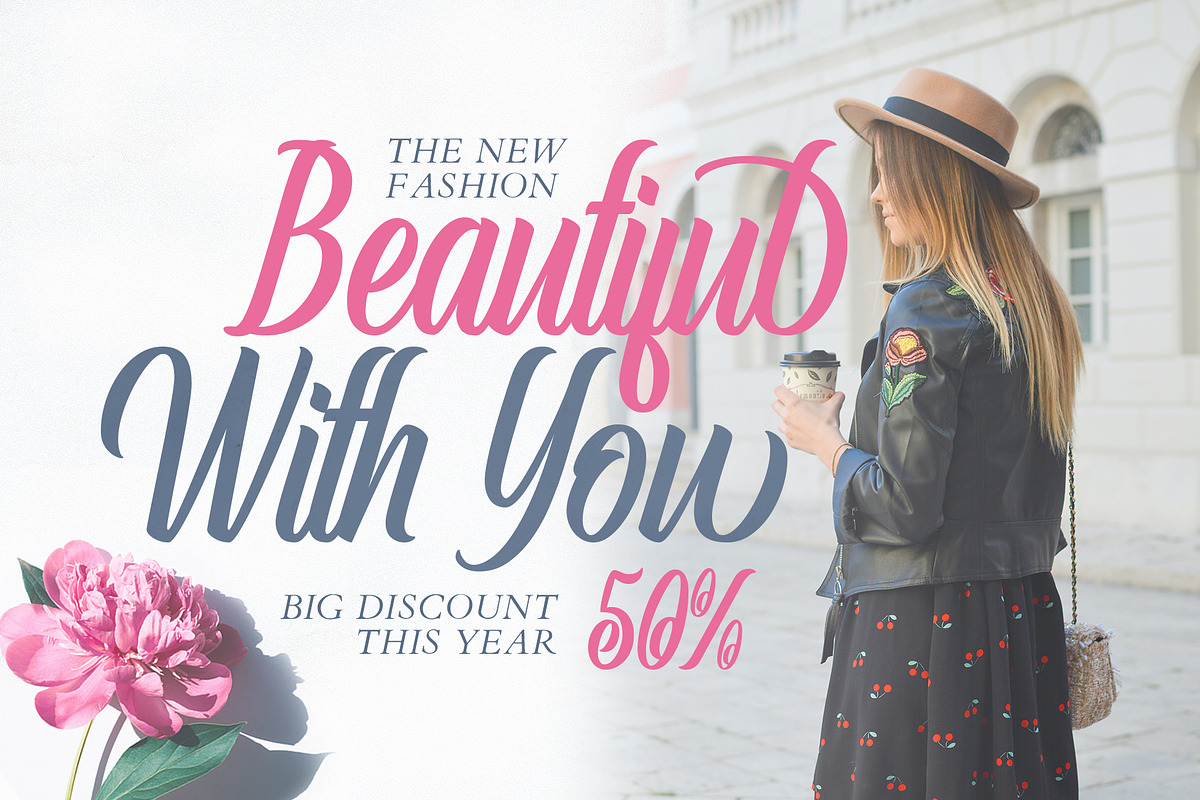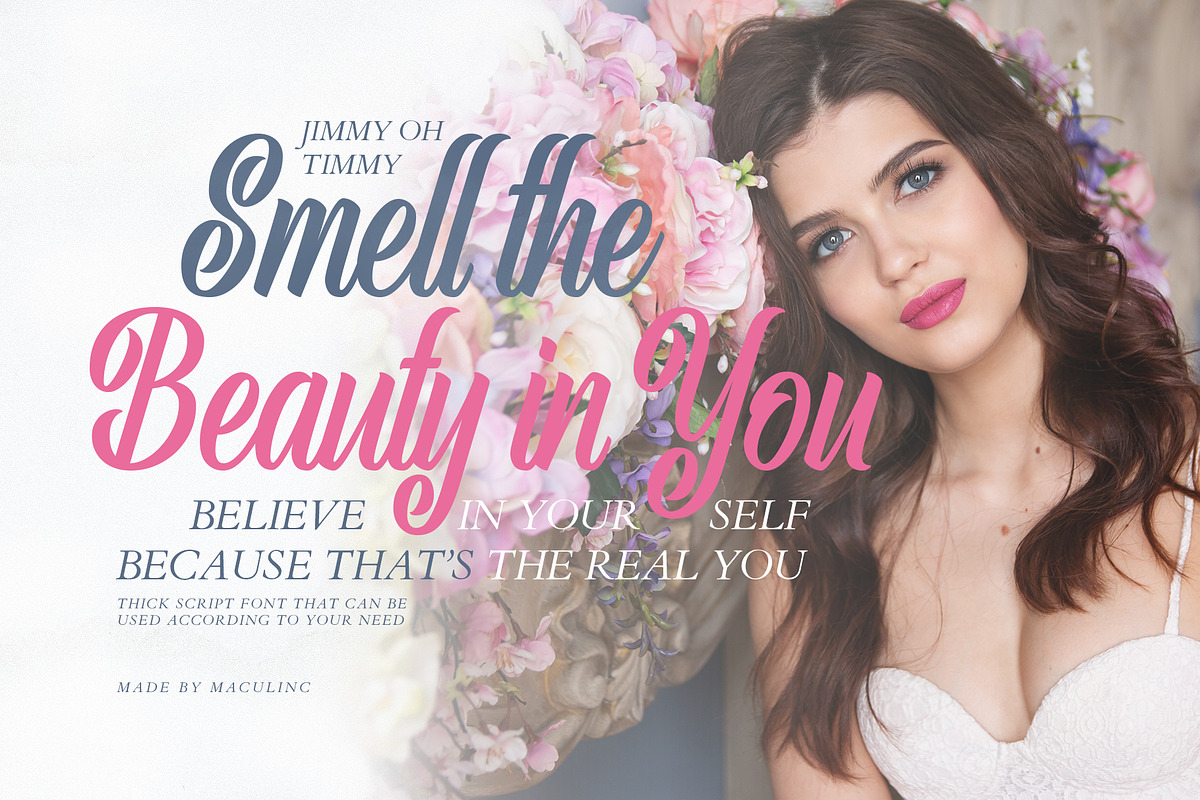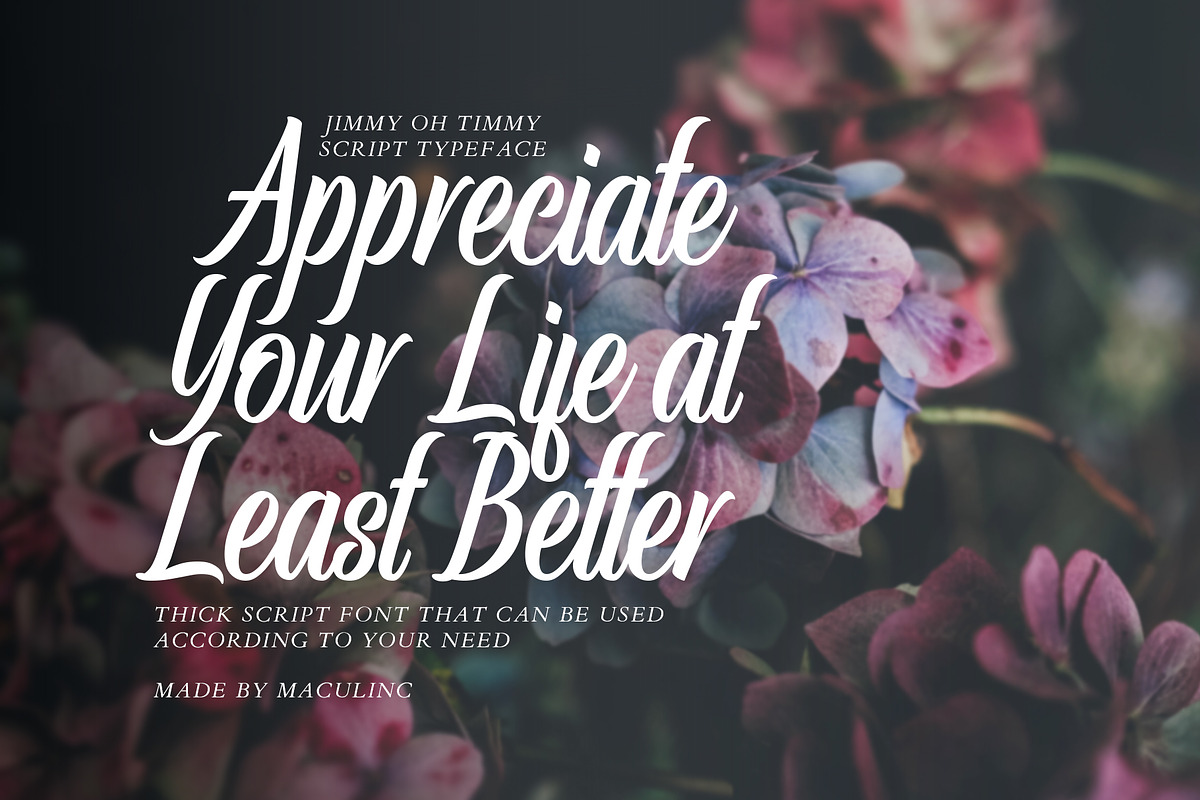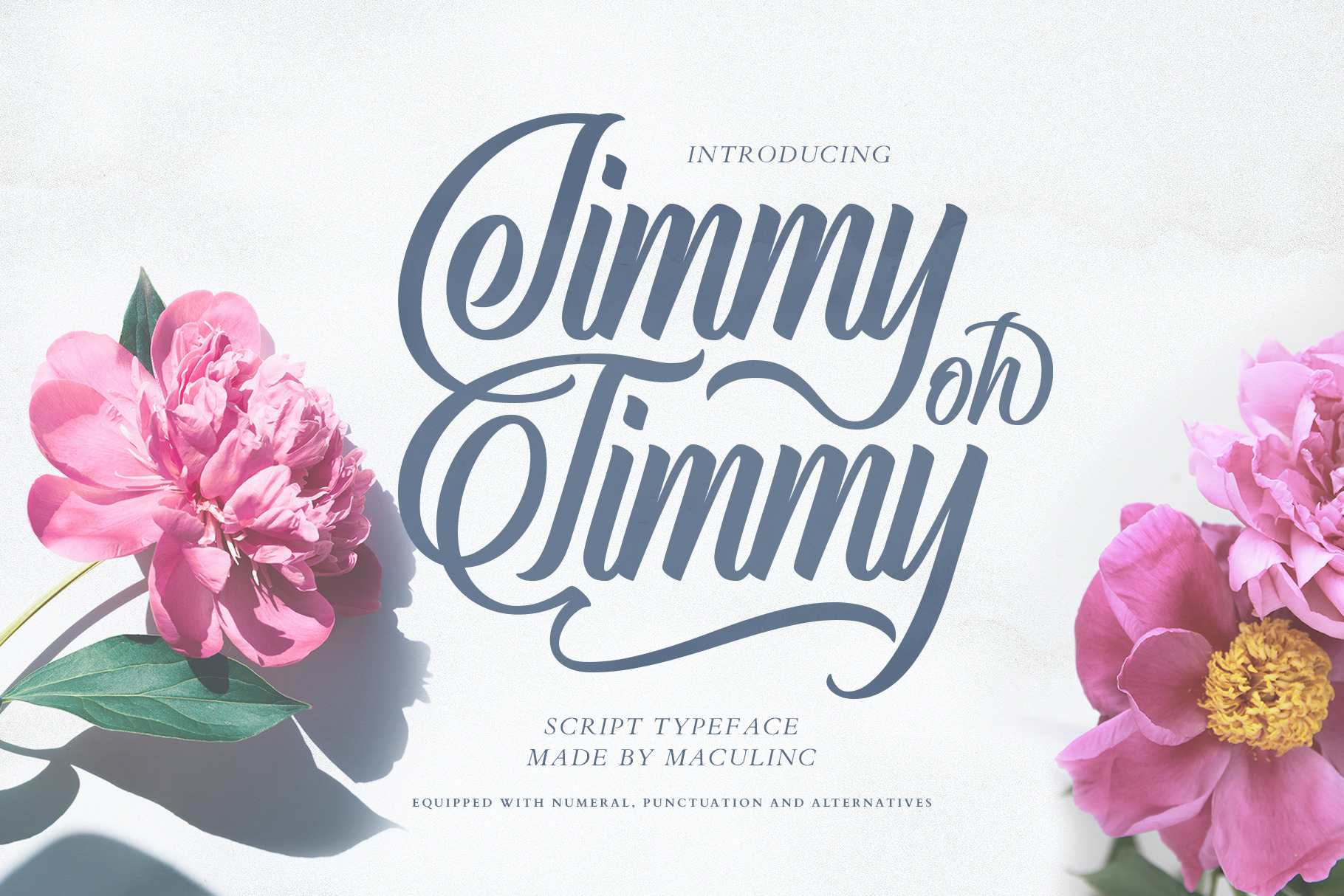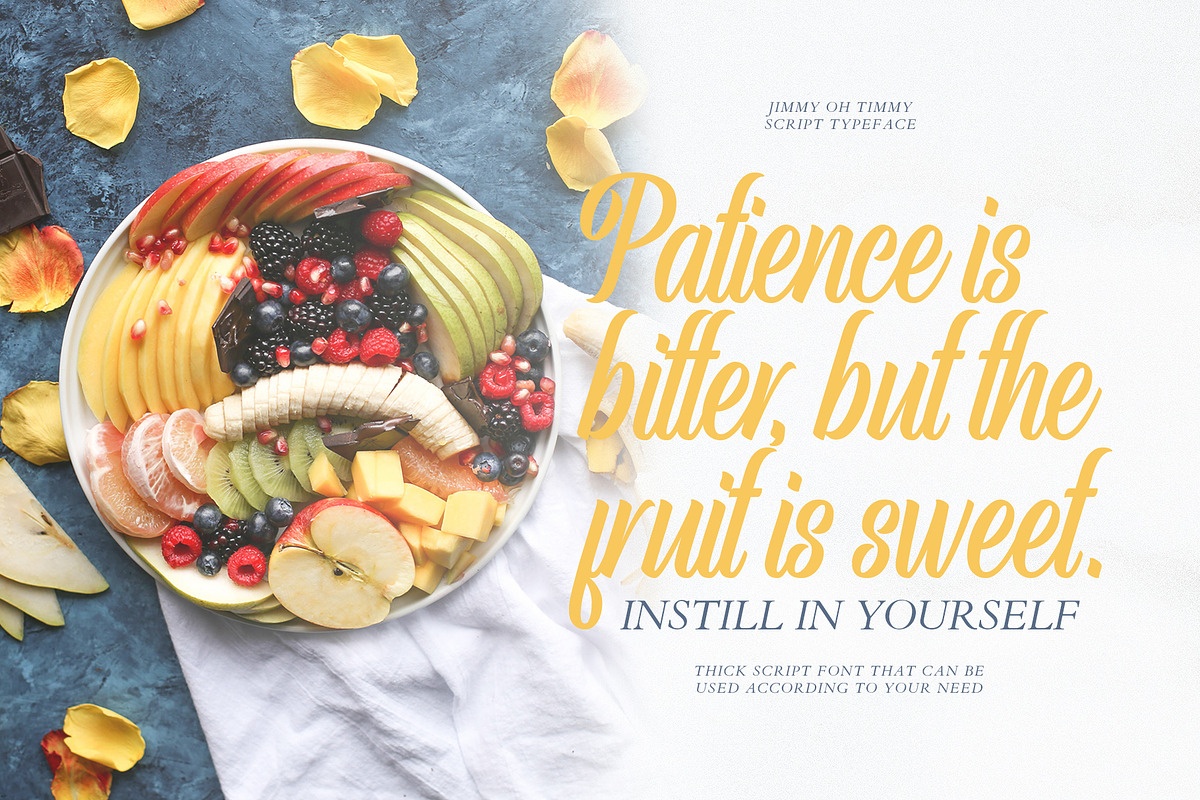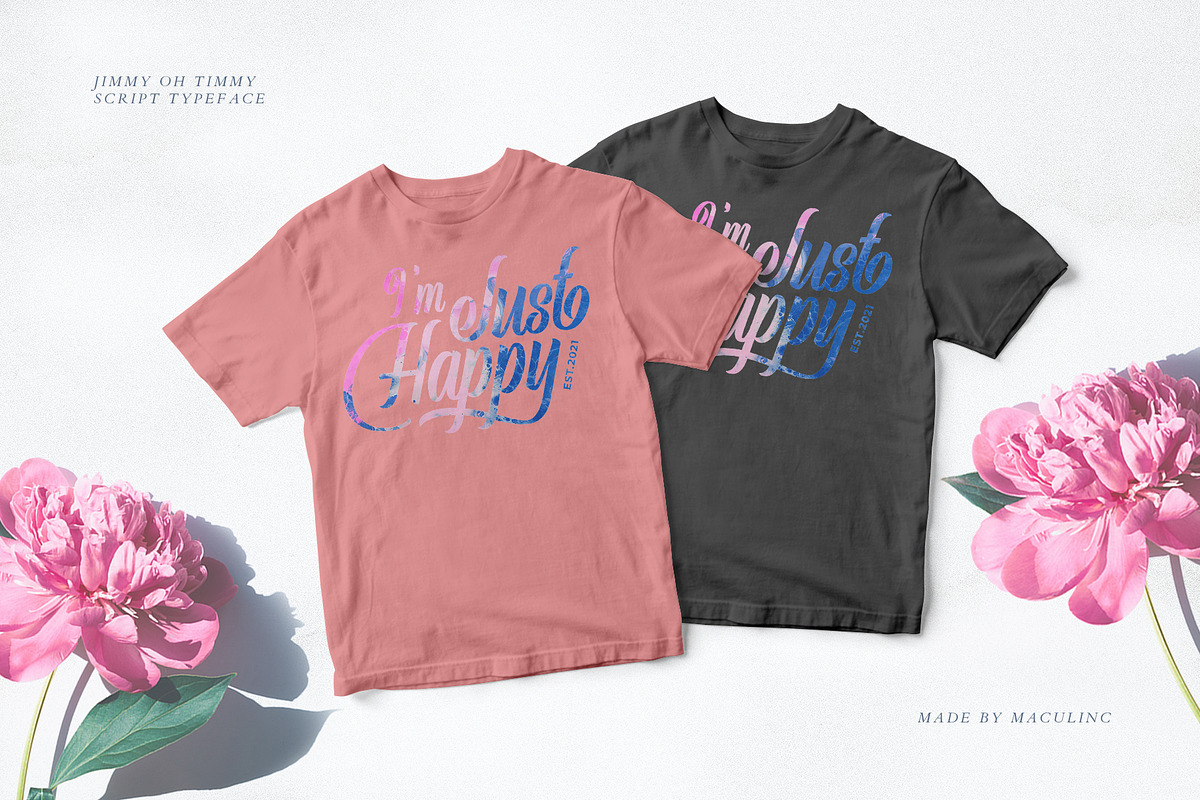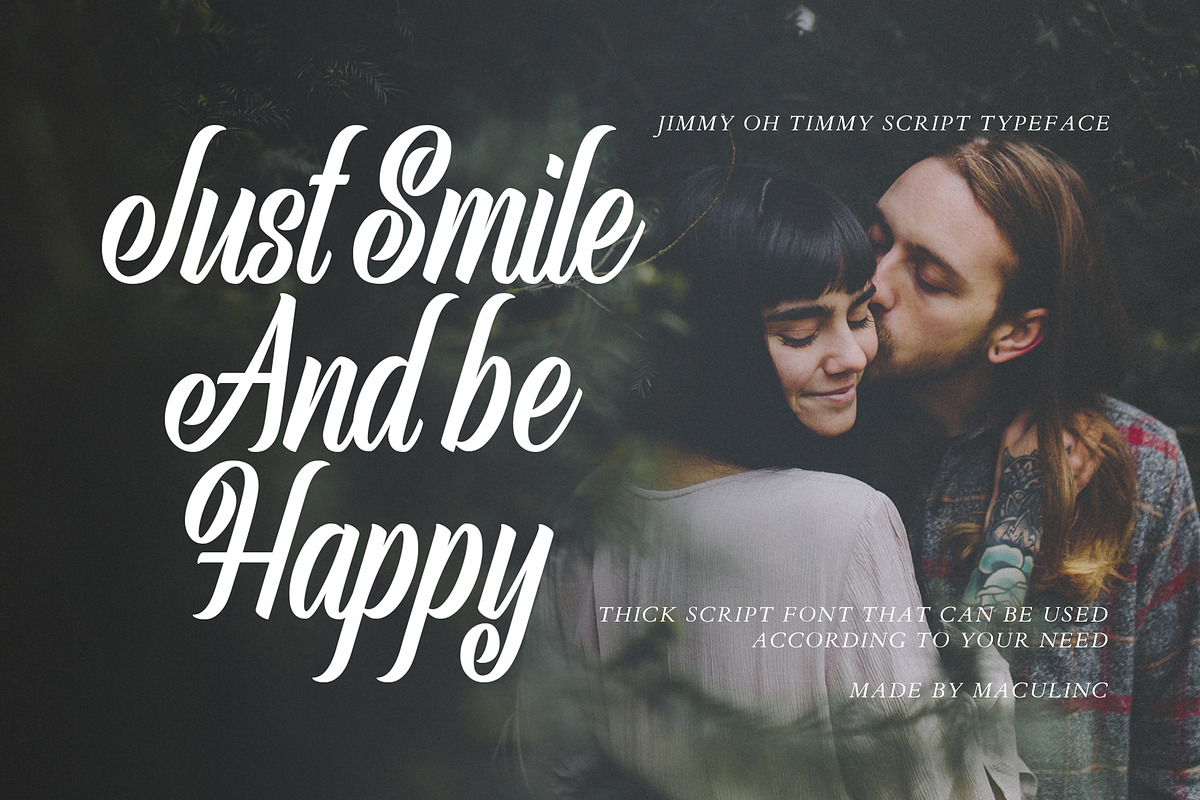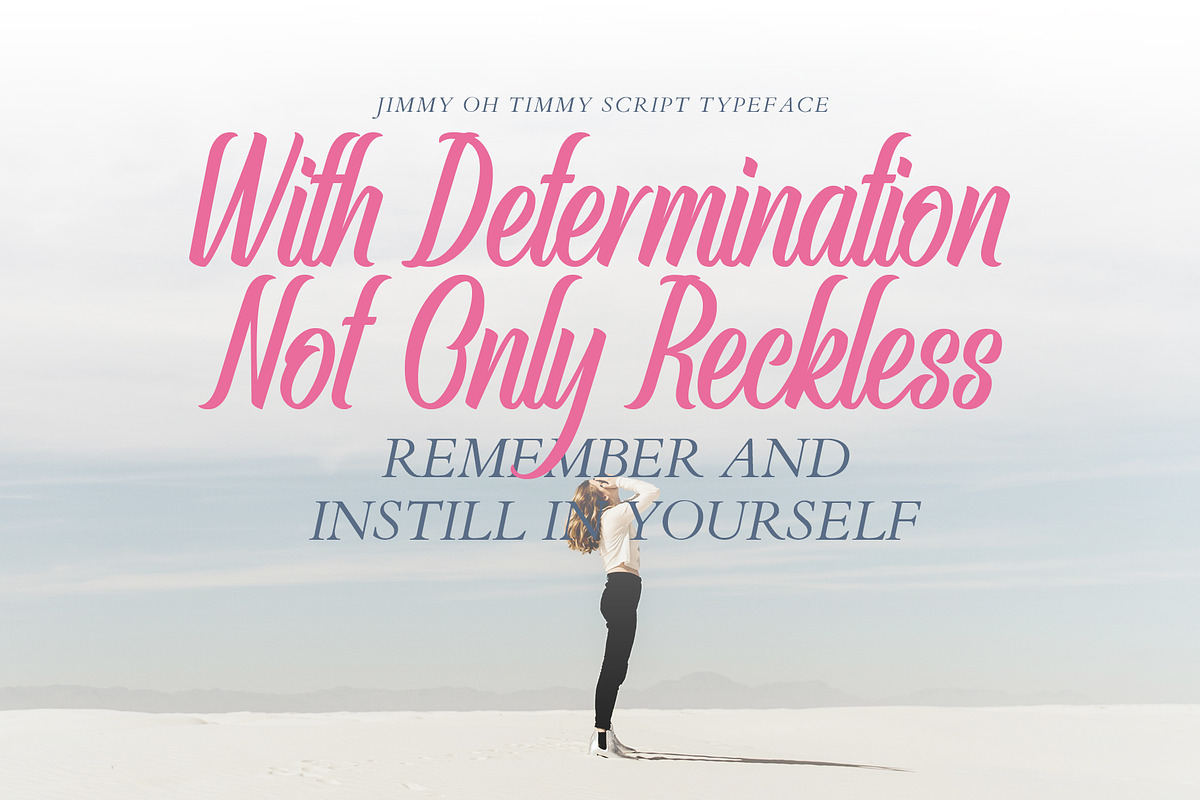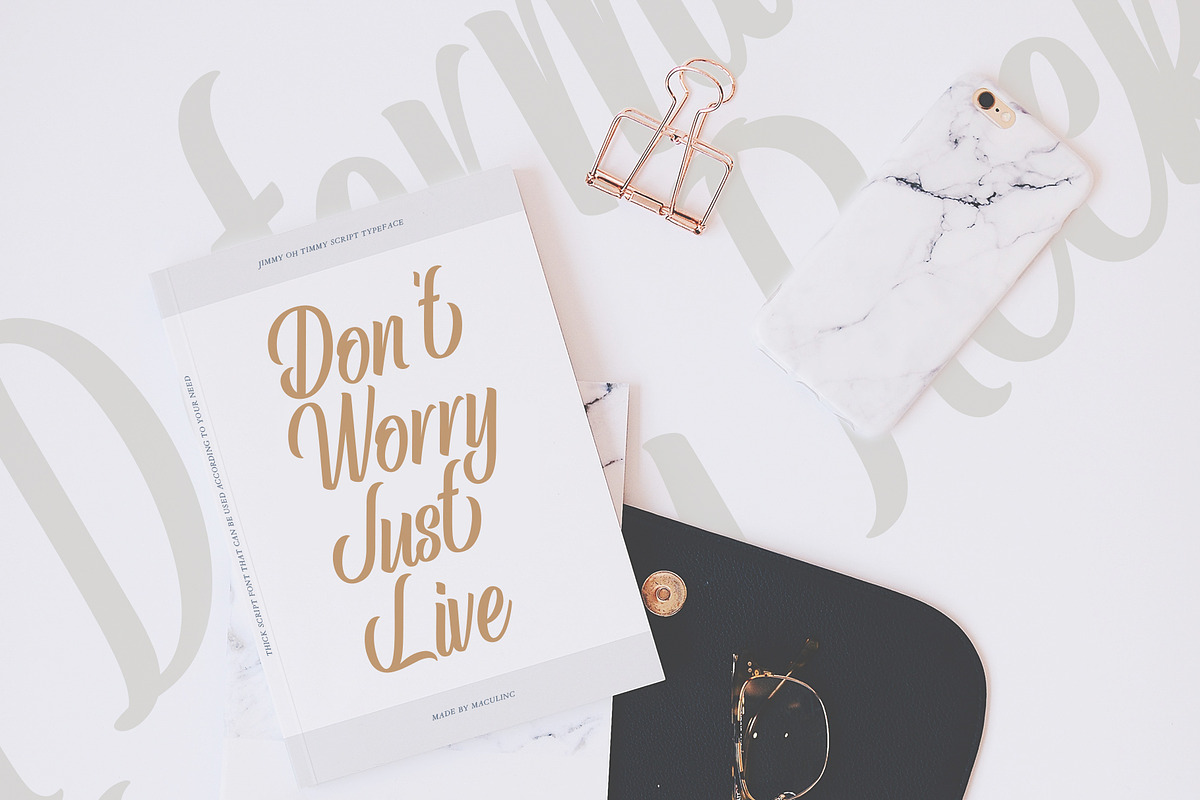
Jimmy Oh Timmy - Script Font
This multipurpose script typeface includes many different alternatives for each lower case. Make this typeface cool in your Font Library. It is a lot of fun to use as each word can be changed to your liking.
This typeface works really well for Logo and Apparel Designs. It's also great for making Prints or Merchandise, as you can use the illustration quality of shapes to create artwork.
Mix and match with a bunch of alternative characters to fit your project. The alternative characters in this font were divided into several OpenType features such as Stylistic Alternates, Ligature and Ligature Alternates.